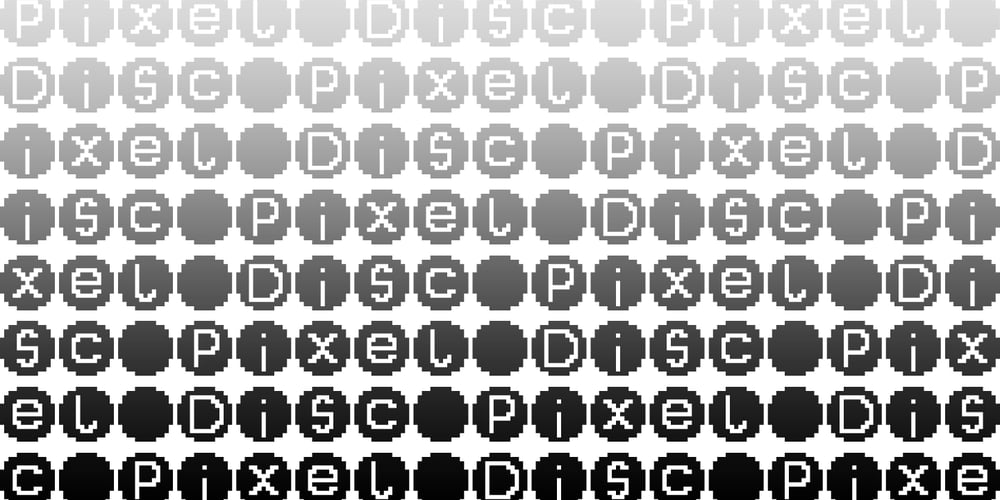
Pixel Disc Font Family was designed by Kole Cook and published by Ech000. Pixel Disc contains 1 styles and family package options. This unique typeface is a great addition to a graphics designer collection. Great for pixel artists who want a unique text style for their works, album artwork and much more. This font contains over 400+ unique glyphs to accommodate for English, Latin languages, most symbols and much more. All characters feature the same size disc surrounding letters utilising negative space through the design.Created by Kole Cook for Ech000 Foundry. The font is inspired by computer text and command line with a unique twist.